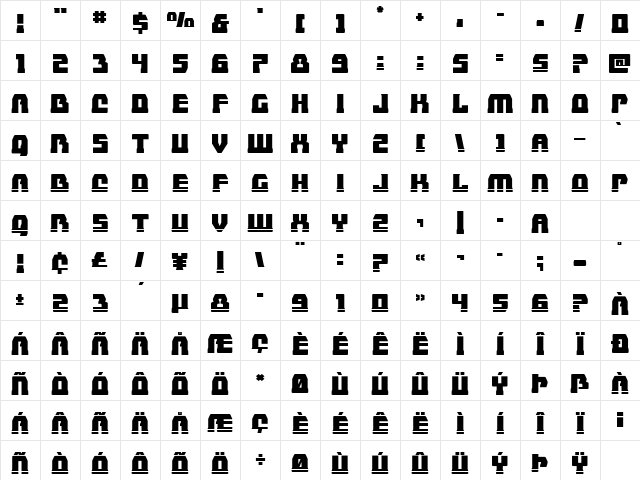
Librator Stripe Expanded Regular
Design Context for Librator Stripe Expanded
Librator Stripe Expanded is a composed and adaptable typeface that performs quietly and consistently across a wide range of design contexts.
Pro Tip: Use Librator Stripe Expanded in both headline and body roles to test its range before committing to a single application.